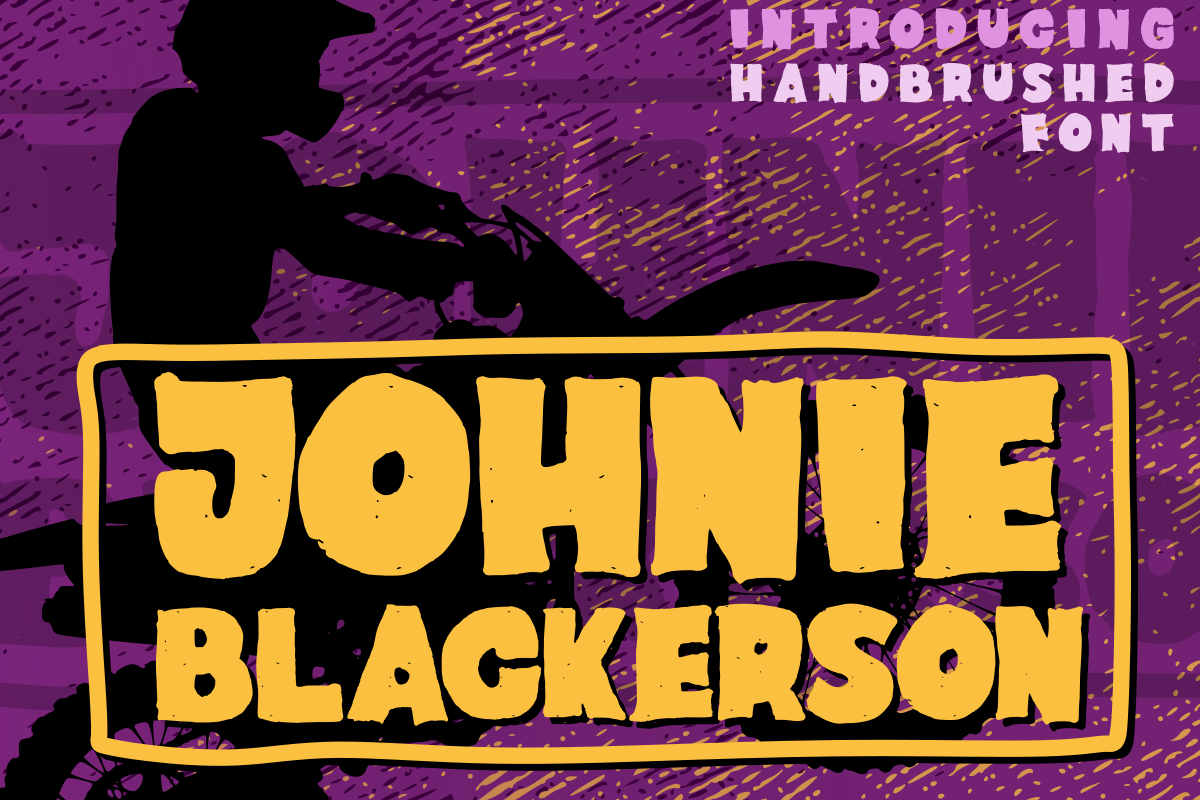
Johnie Blackerson
Johnie Blackerson is a handbrush font. with bold and thick style. Perfect for printed quotes, poster, cards, product packaging, headers, social media, branding and whatever your imagination holds.